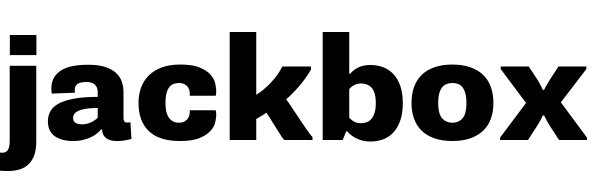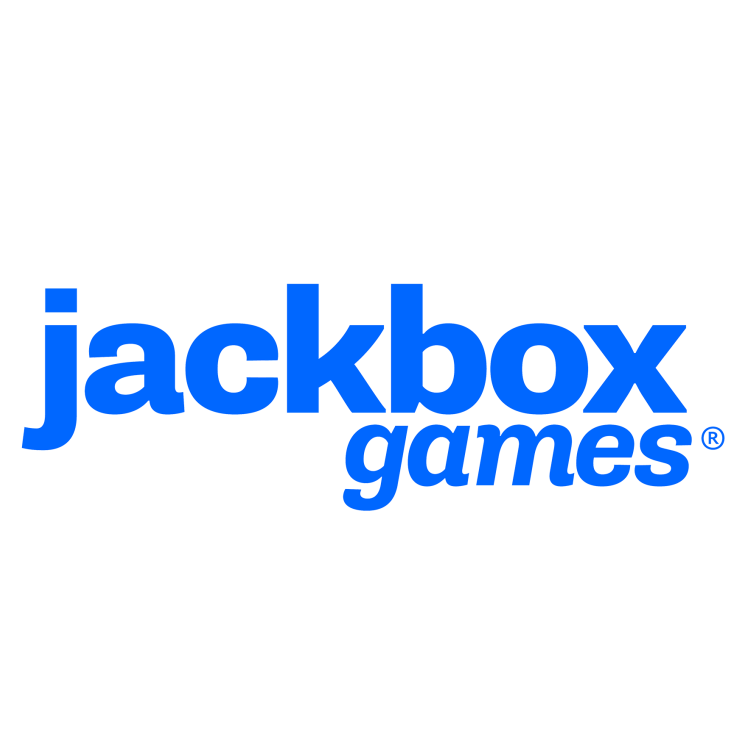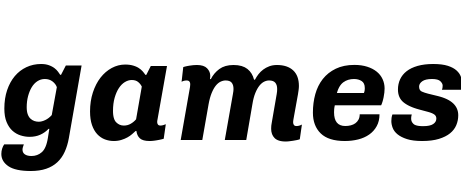
Jackbox Games Font
The "jackbox" and "games" text in the logo are displayed in different weights of Supria Sans, a grotesque sans-serif font family created by Hannes von Döhren and released by HVD Fonts in 2011. Specifically, "jackbox" is set in Supria Sans Heavy, and "games" is set in Supria Sans Bold Italic.